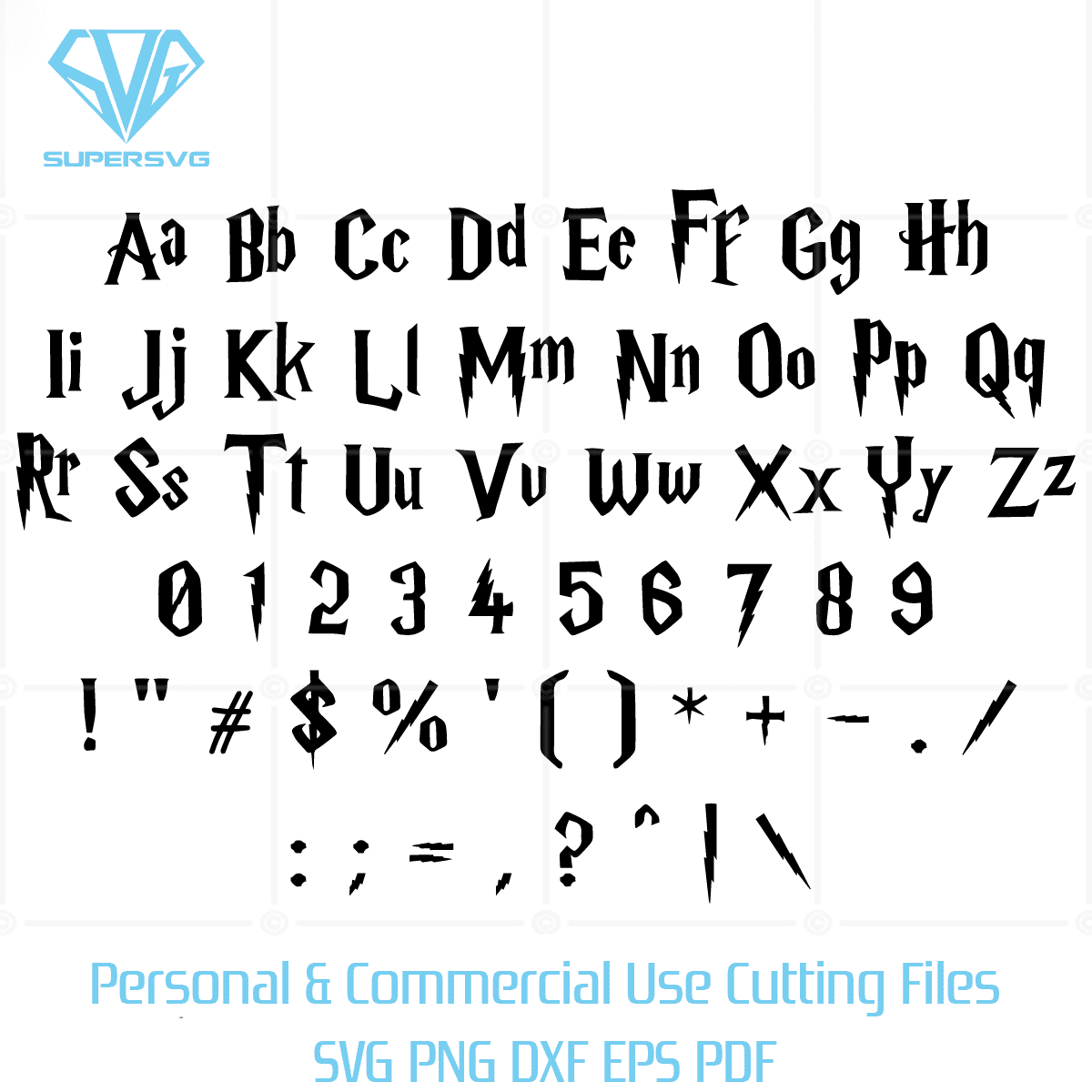
Does Cricut Have Harry Potter Font . They add new stuff constantly! Take a look at our magic wizard font, inspired by the harry potter font. This font is compatible with cricut, canva, microsoft word, silhouette and more. In case that link doesn't work it is: Whether you’re a gryffindor, slytherin, hufflepuff, or a ravenclaw, represent your personality with custom home décor, apparel, accessories, fan gear, and more. A magical collection of harry potter fonts. So does cricut design space have harry potter font? Yes, there is indeed a harry potter font available for use on cricut design space! From a free font site! All you need to do is select the “harry potter” option from the list. You can easily find it using the search bar at the top of the. The harry potter font was released in 2017 and has become one of the most popular fonts in cricut design space. Even a muggle can make decorations that mimic the style of the wizarding world of hogwarts.
So does cricut design space have harry potter font? From a free font site! Yes, there is indeed a harry potter font available for use on cricut design space! In case that link doesn't work it is: All you need to do is select the “harry potter” option from the list. Take a look at our magic wizard font, inspired by the harry potter font. This font is compatible with cricut, canva, microsoft word, silhouette and more. The harry potter font was released in 2017 and has become one of the most popular fonts in cricut design space. A magical collection of harry potter fonts. Whether you’re a gryffindor, slytherin, hufflepuff, or a ravenclaw, represent your personality with custom home décor, apparel, accessories, fan gear, and more.
Does Cricut Have Harry Potter Font In case that link doesn't work it is: You can easily find it using the search bar at the top of the. Whether you’re a gryffindor, slytherin, hufflepuff, or a ravenclaw, represent your personality with custom home décor, apparel, accessories, fan gear, and more. From a free font site! They add new stuff constantly! Even a muggle can make decorations that mimic the style of the wizarding world of hogwarts. This font is compatible with cricut, canva, microsoft word, silhouette and more. In case that link doesn't work it is: Take a look at our magic wizard font, inspired by the harry potter font. All you need to do is select the “harry potter” option from the list. Yes, there is indeed a harry potter font available for use on cricut design space! The harry potter font was released in 2017 and has become one of the most popular fonts in cricut design space. So does cricut design space have harry potter font? A magical collection of harry potter fonts.
Harry potter font on cricut sandbda Does Cricut Have Harry Potter Font A magical collection of harry potter fonts. So does cricut design space have harry potter font? All you need to do is select the “harry potter” option from the list. The harry potter font was released in 2017 and has become one of the most popular fonts in cricut design space. You can easily find it using the search bar. Does Cricut Have Harry Potter Font.
Free harry potter fonts for cricut jesrf Does Cricut Have Harry Potter Font Take a look at our magic wizard font, inspired by the harry potter font. From a free font site! Whether you’re a gryffindor, slytherin, hufflepuff, or a ravenclaw, represent your personality with custom home décor, apparel, accessories, fan gear, and more. A magical collection of harry potter fonts. This font is compatible with cricut, canva, microsoft word, silhouette and more.. Does Cricut Have Harry Potter Font.
Free harry potter font for cricut enasgamer Does Cricut Have Harry Potter Font In case that link doesn't work it is: From a free font site! A magical collection of harry potter fonts. Whether you’re a gryffindor, slytherin, hufflepuff, or a ravenclaw, represent your personality with custom home décor, apparel, accessories, fan gear, and more. Take a look at our magic wizard font, inspired by the harry potter font. The harry potter font. Does Cricut Have Harry Potter Font.
Harry Potter Font Cricut SVGbees Does Cricut Have Harry Potter Font All you need to do is select the “harry potter” option from the list. The harry potter font was released in 2017 and has become one of the most popular fonts in cricut design space. So does cricut design space have harry potter font? Whether you’re a gryffindor, slytherin, hufflepuff, or a ravenclaw, represent your personality with custom home décor,. Does Cricut Have Harry Potter Font.
Harry potter inspired cut files and fonts for silhouette and cricut Does Cricut Have Harry Potter Font This font is compatible with cricut, canva, microsoft word, silhouette and more. Even a muggle can make decorations that mimic the style of the wizarding world of hogwarts. Whether you’re a gryffindor, slytherin, hufflepuff, or a ravenclaw, represent your personality with custom home décor, apparel, accessories, fan gear, and more. They add new stuff constantly! A magical collection of harry. Does Cricut Have Harry Potter Font.
Harry Potter Font SVG Cricut Fonts Svg Files for Cricut Etsy Does Cricut Have Harry Potter Font Even a muggle can make decorations that mimic the style of the wizarding world of hogwarts. The harry potter font was released in 2017 and has become one of the most popular fonts in cricut design space. Whether you’re a gryffindor, slytherin, hufflepuff, or a ravenclaw, represent your personality with custom home décor, apparel, accessories, fan gear, and more. From. Does Cricut Have Harry Potter Font.
Harry Potter Font Lightning Alphabet Svg Files For Cricut Does Cricut Have Harry Potter Font You can easily find it using the search bar at the top of the. The harry potter font was released in 2017 and has become one of the most popular fonts in cricut design space. So does cricut design space have harry potter font? They add new stuff constantly! Even a muggle can make decorations that mimic the style of. Does Cricut Have Harry Potter Font.
Harry potter fonts cricut retcontrol Does Cricut Have Harry Potter Font From a free font site! A magical collection of harry potter fonts. The harry potter font was released in 2017 and has become one of the most popular fonts in cricut design space. This font is compatible with cricut, canva, microsoft word, silhouette and more. So does cricut design space have harry potter font? They add new stuff constantly! Yes,. Does Cricut Have Harry Potter Font.